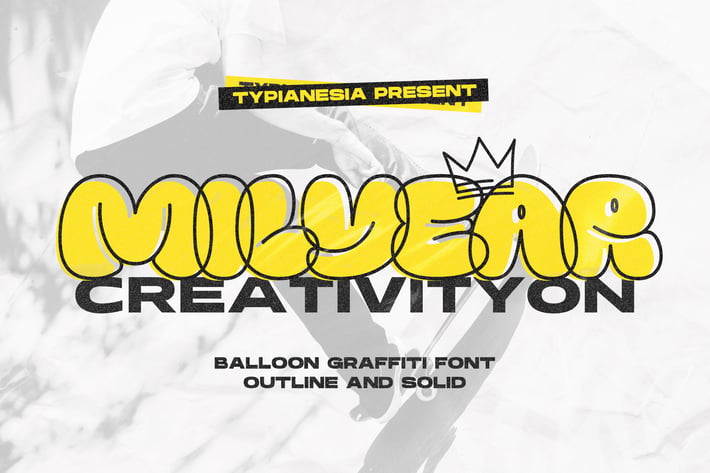
Milyear Solid - Balloon Grafiti Font
Milyear Solid - Playful Balloon Graffiti Font - Urban Street Vibes - Unique Branding and Fun Design
Milyear Solid is a unique ballon graffiti font that effortlessly combines the graffiti with the playful and dynamic elements of balloon design. The outline style adds a touch of modernity, while the solid version provides a bold and impactful appearance. The font Ideal for a variety of creative projects, Milyear Solid is versatile and can be applied you’re designing posters, logos, banners, social media content, product packaging for items targeting a youthful or artistic audience, Street Art and Murals, and Website Headers and Titles. This font adds a touch of urban flair to your creations and boasts a solid, robust design for clarity and impact. Its intricate outline detailing adds a dynamic, edgy touch, elevating visual appeal. Standout versatility lies in seamless font pairing, offering unmatched flexibility for creative combinations and diverse design possibilities across various artistic expressions.